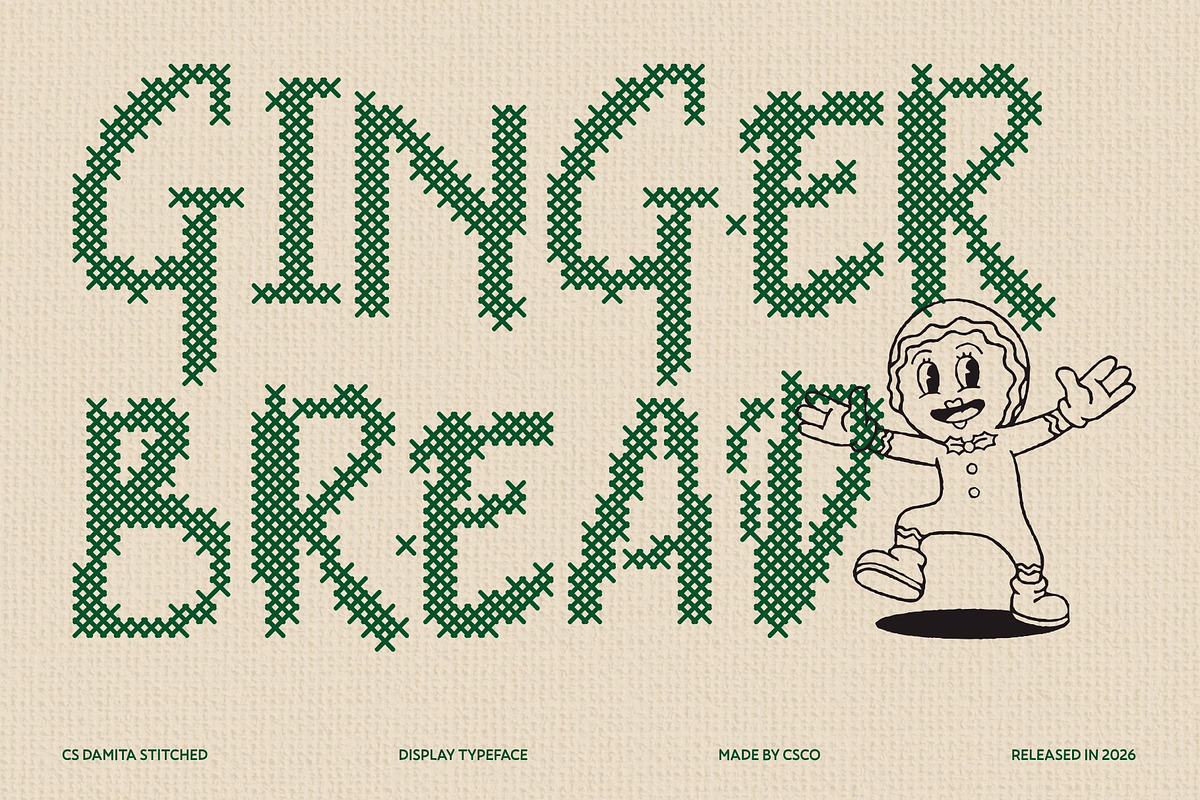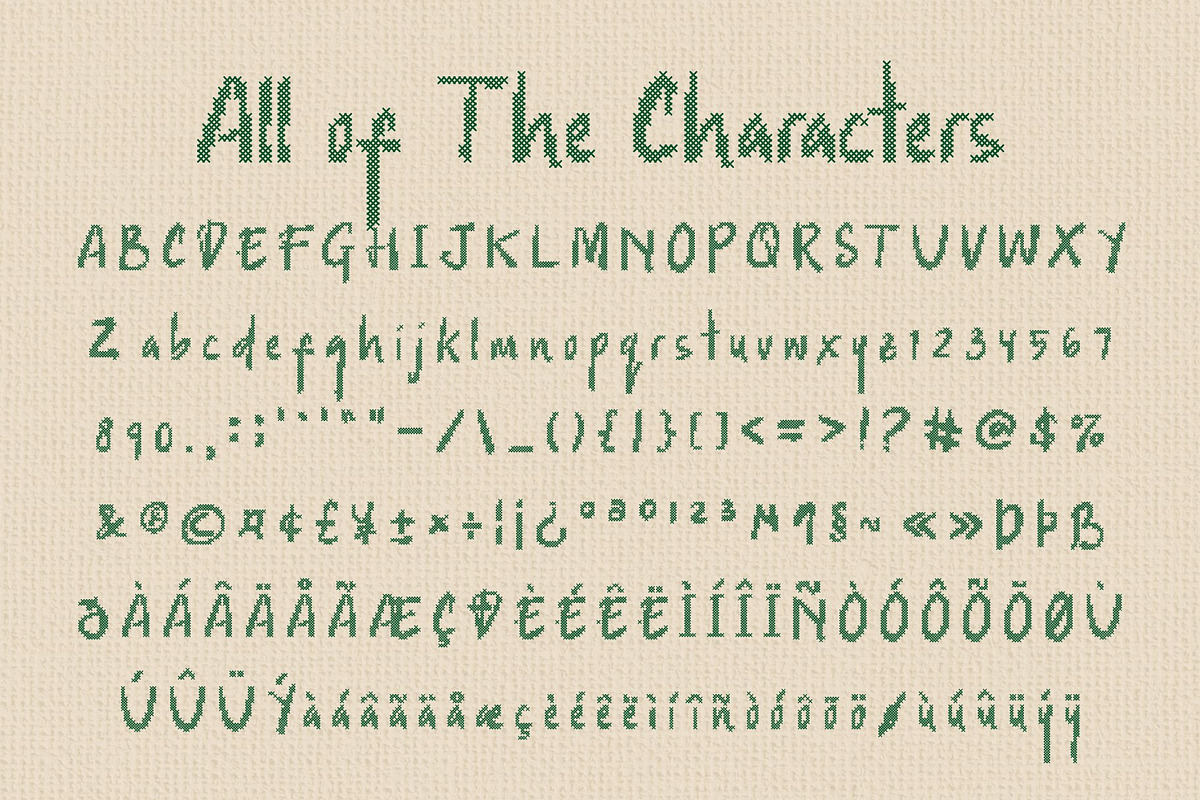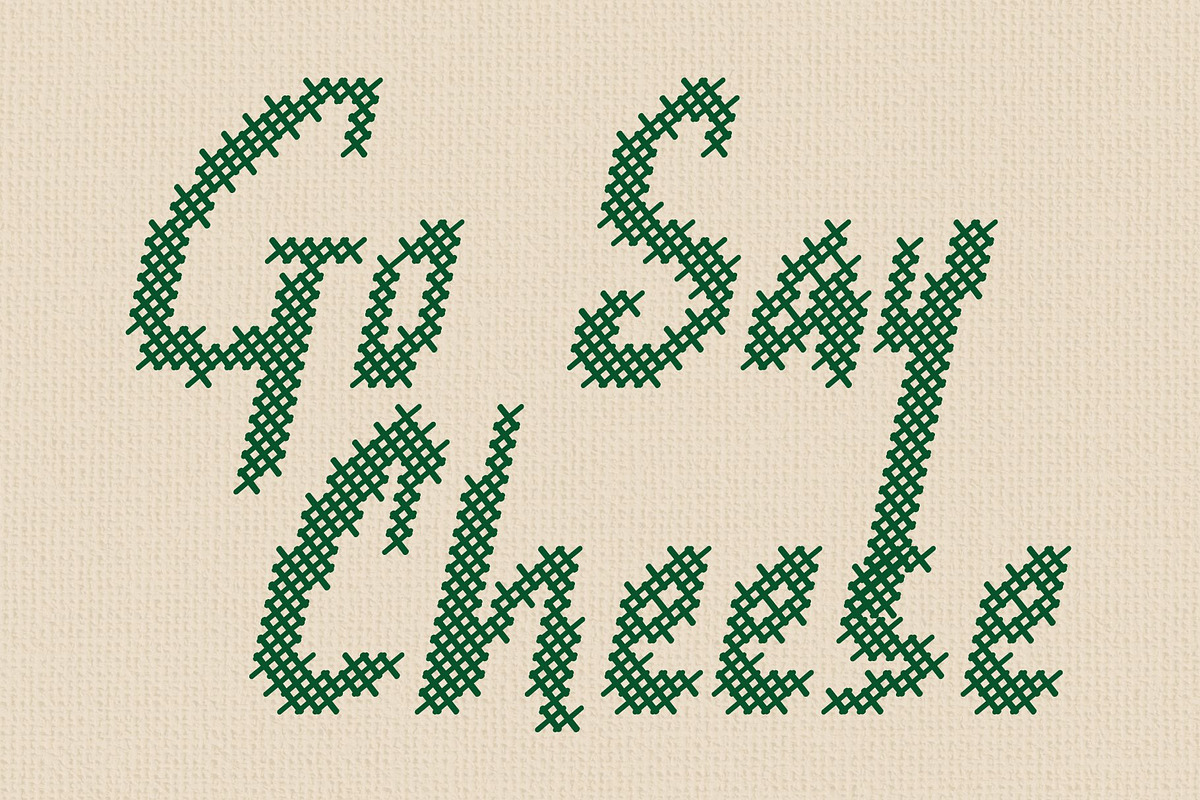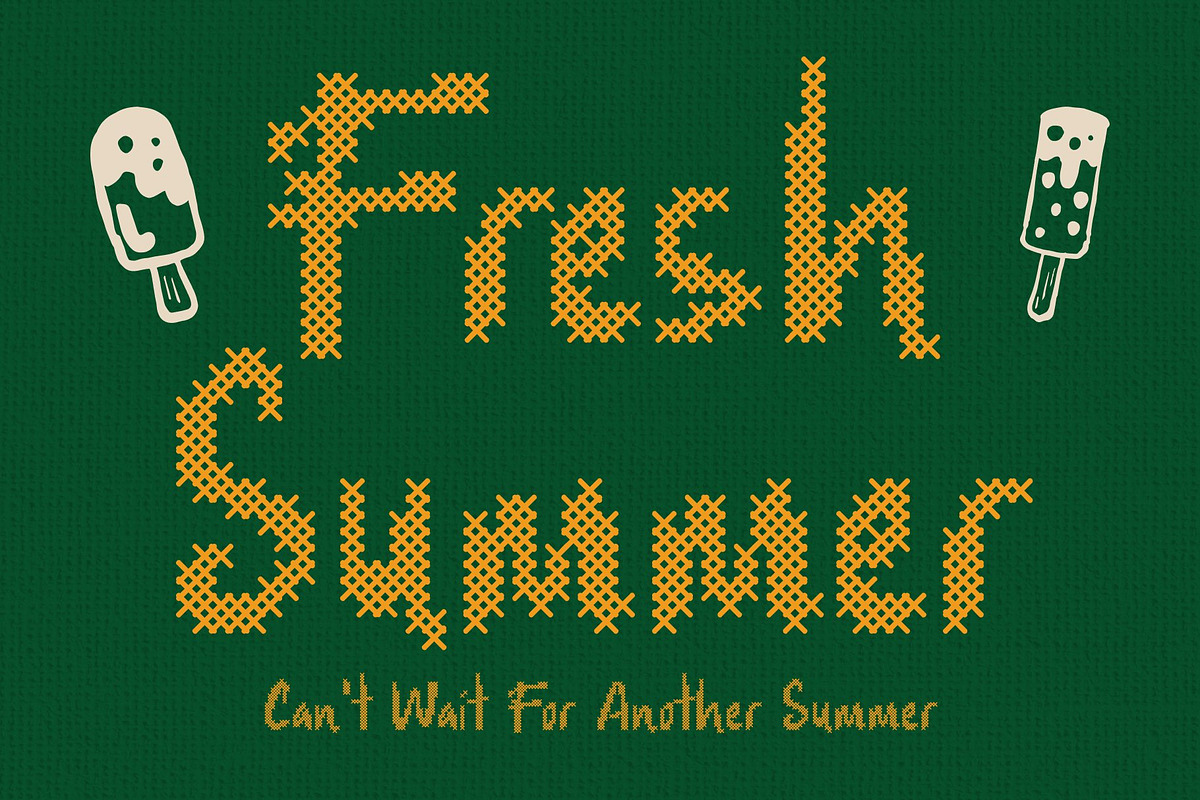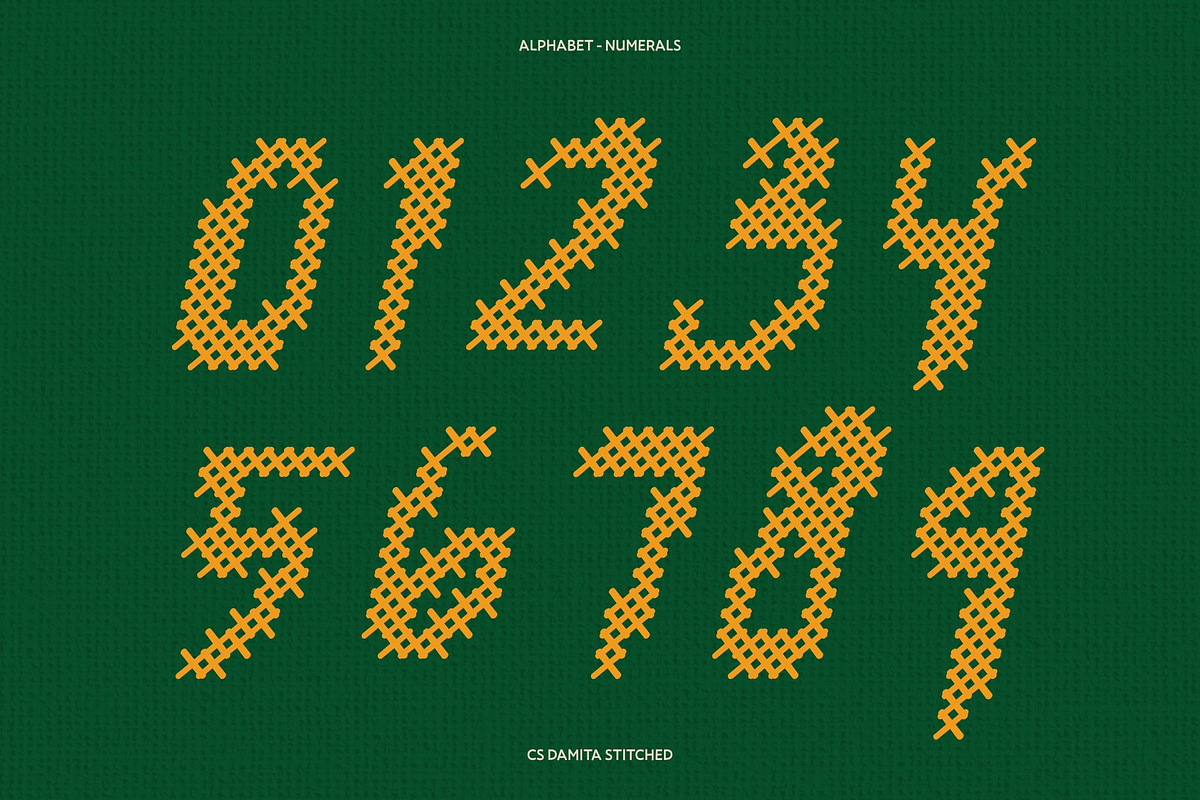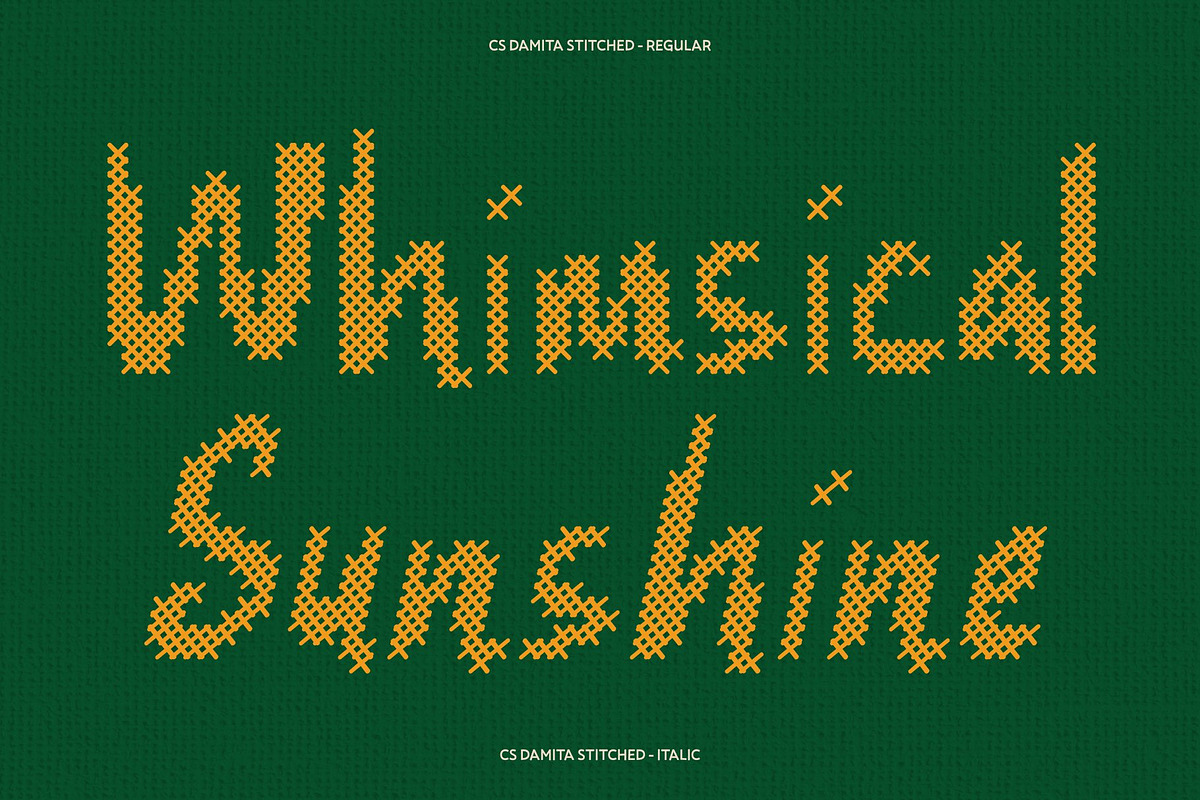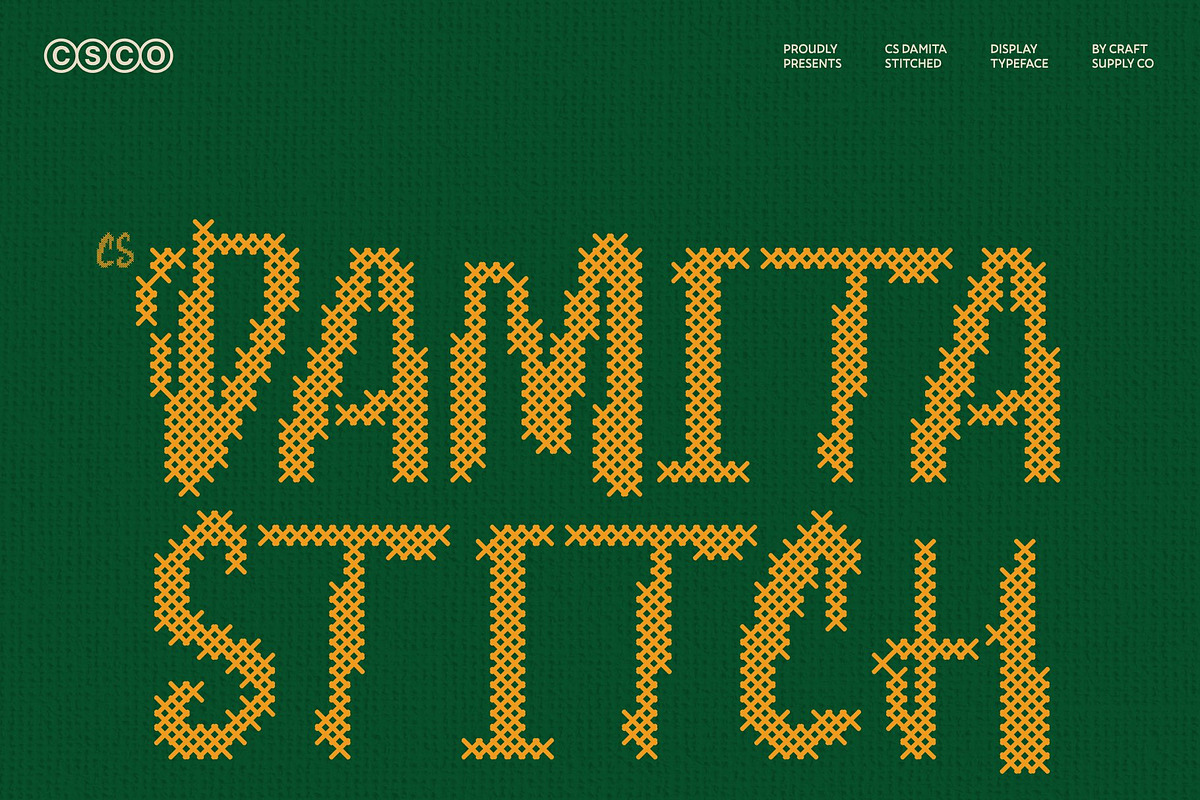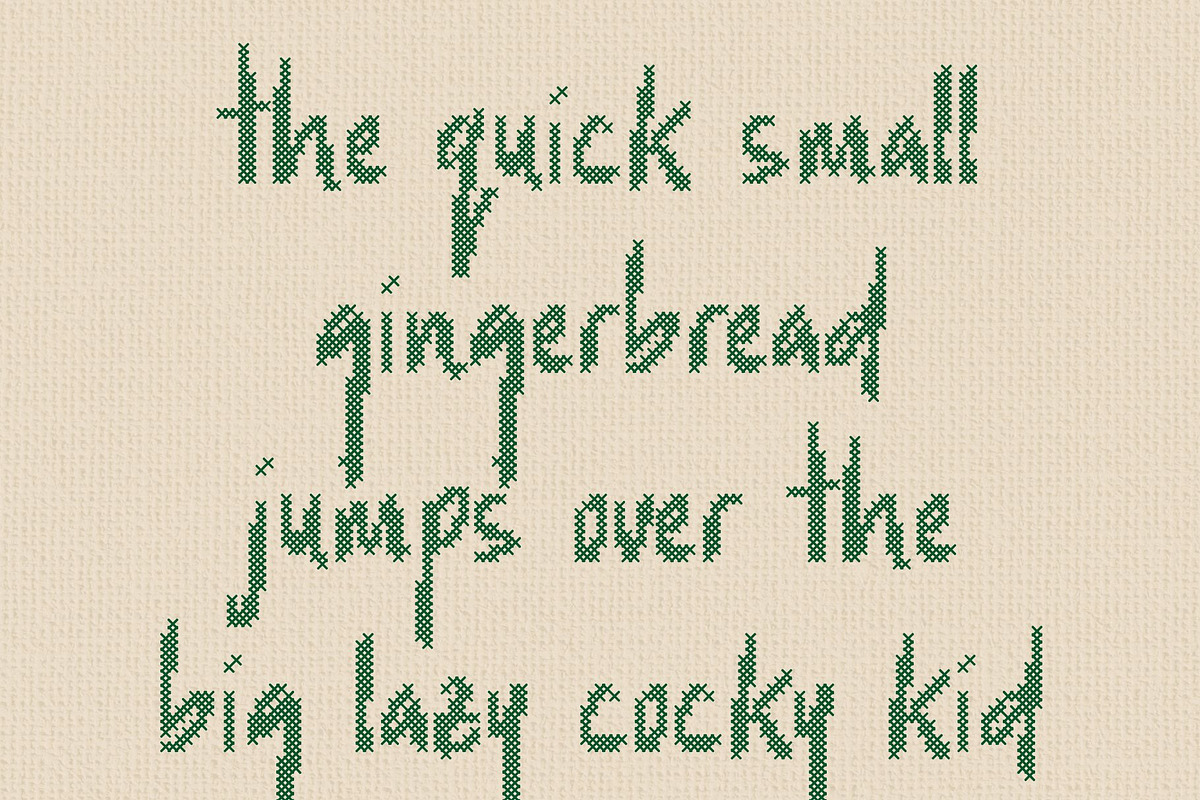
CS Damita Stitched
CS Damita Stitched is a handwritten display font designed to capture the soft, expressive beauty of real pen strokes. Its gentle curves and organic movement create a soothing handwritten feel that looks sincere and inviting, ensuring every line communicates warmth and personal connection. What sets this design apart is its distinctive stitched style, meticulously crafted to mimic the look of real thread sewn or embroidered directly onto fabric.
Every character features a unique cross-shaped pattern that delivers a classic, nostalgic, relaxed, and warm impression. This decorative detail introduces an embossed and structured texture, transforming standard typography into a tactile visual experience. Designers seeking authenticity will find that this typeface brings an artisanal quality to digital layouts, bridging the gap between graphic design and textile craftsmanship with effortless charm.
The versatile aesthetic lends itself beautifully to a wide array of creative applications where personality matters most. Use it for boutique branding, handmade product packaging, cozy editorial layouts, heartwarming greeting cards, and apparel graphics that demand a touch of human craftsmanship. The distinct embroidered appearance immediately draws the eye, adding depth and dimension that flat fonts simply cannot achieve on their own.
Elevate your next project by incorporating CS Damita Stitched into your design toolkit and let your messaging resonate with genuine tactile appeal. Whether you are crafting rustic logos or inviting lifestyle branding, this typeface delivers the perfect balance of casual elegance and structured detail. Embrace the art of thread-inspired typography and give your work a truly memorable, handcrafted finish.